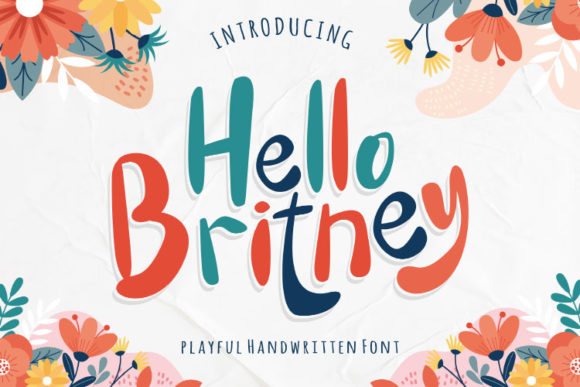
Journey into the whimsical world of Hello Britney, a captivating display font that ignites the imagination and transports you to a realm of boundless creativity. Inspired by the colorful adventures of comic books, this font exudes a playful charm that will infuse your designs with an infectious sense of joy.
Hello Britney is not just a font; it's a gateway to a world where laughter reigns supreme and imagination runs wild. With its bold strokes and playful curves, this font captures the essence of childhood dreams, inviting you to create designs that spark wonder and ignite the imagination of your audience.
Picture your designs adorned with the vibrant hues of Hello Britney, as if each letter were a stroke of color dancing across the page. Whether you're crafting posters for children's events, designing playful invitations, or creating eye-catching social media graphics, Hello Britney will transform your words into works of art.
Imagine the smiles that will light up the faces of children as they explore the whimsical world of Hello Britney. This font has the power to transform ordinary designs into captivating adventures, where each letter becomes a character in a story waiting to be told.
With Hello Britney, you hold the key to unlocking a treasure trove of creative possibilities. Unleash your imagination and let this font guide you on a journey where the boundaries of creativity dissolve, and the possibilities are endless. Embrace the magic of Hello Britney and watch your designs come alive with a vibrancy that will captivate and delight.